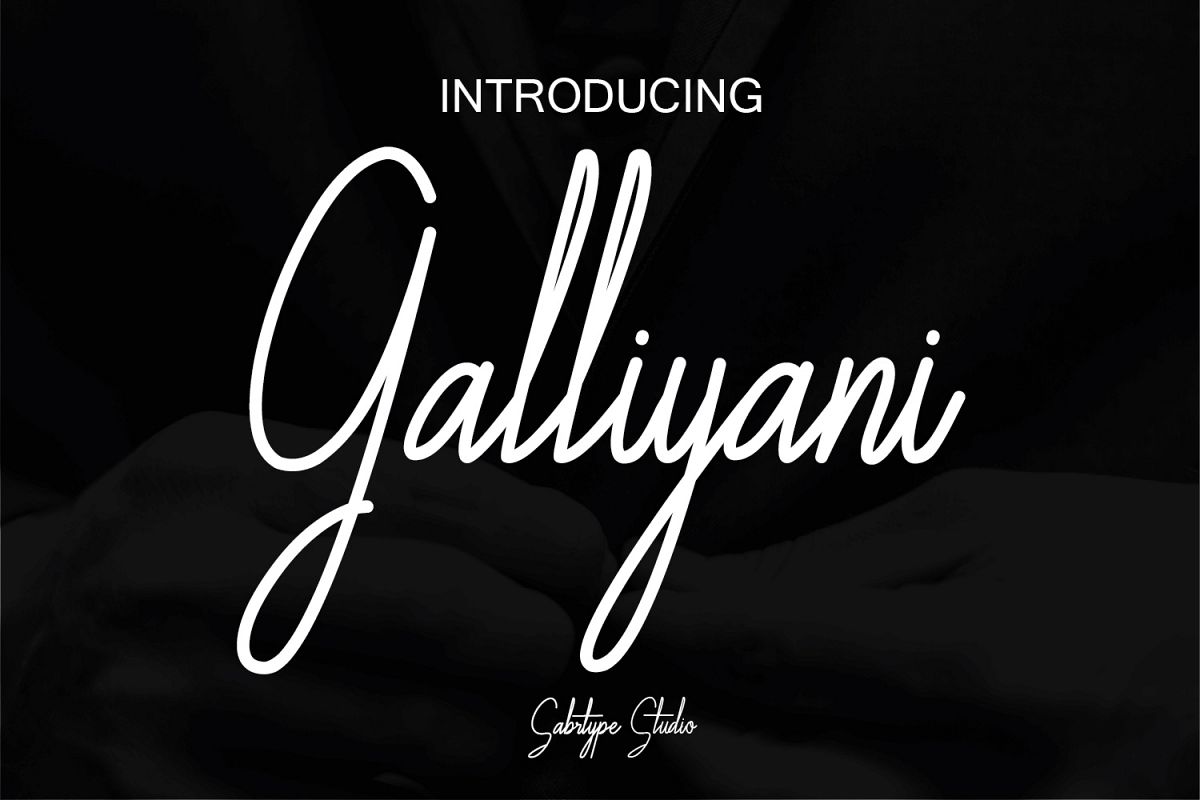
Galliyani Handwritten Font Style
Galliyani handwritten font which stylish natural handwritten font.
Galliyani is perfect for photography, watermark, social media posts, advertisements, logos & branding, invitation, product designs, label, stationery, wedding designs, product packaging.